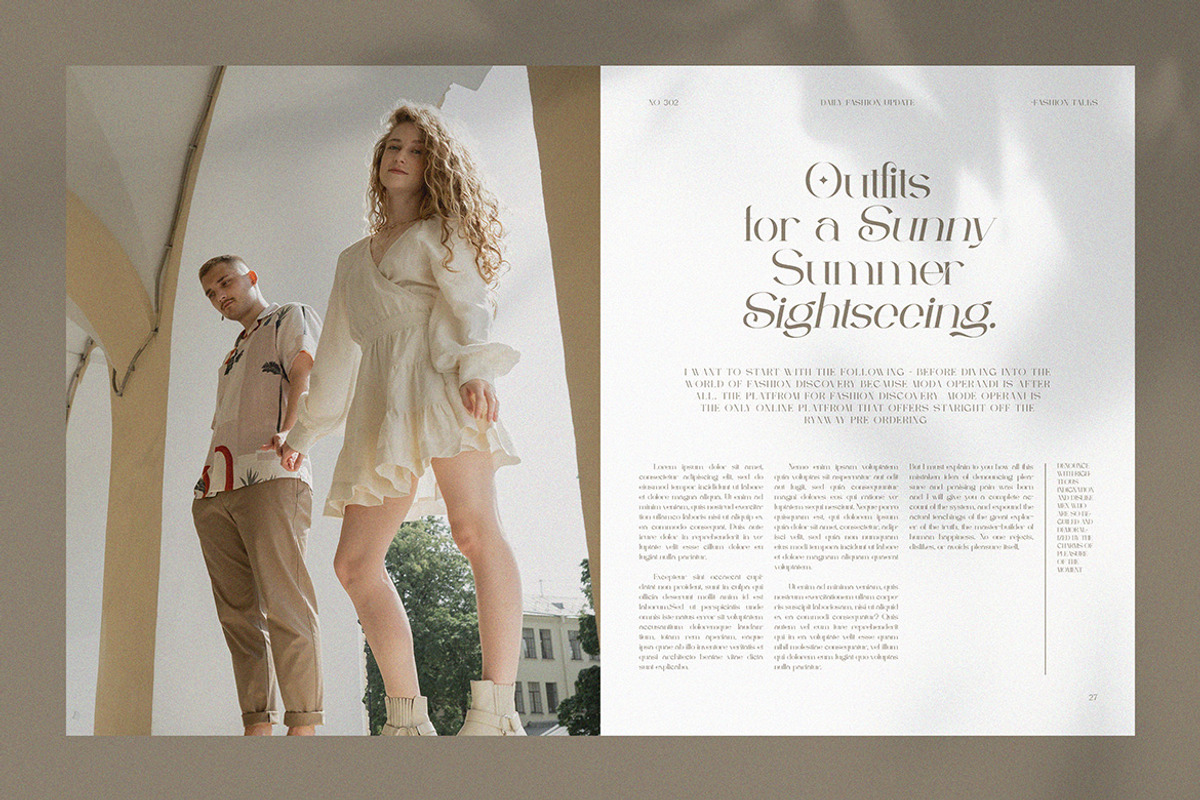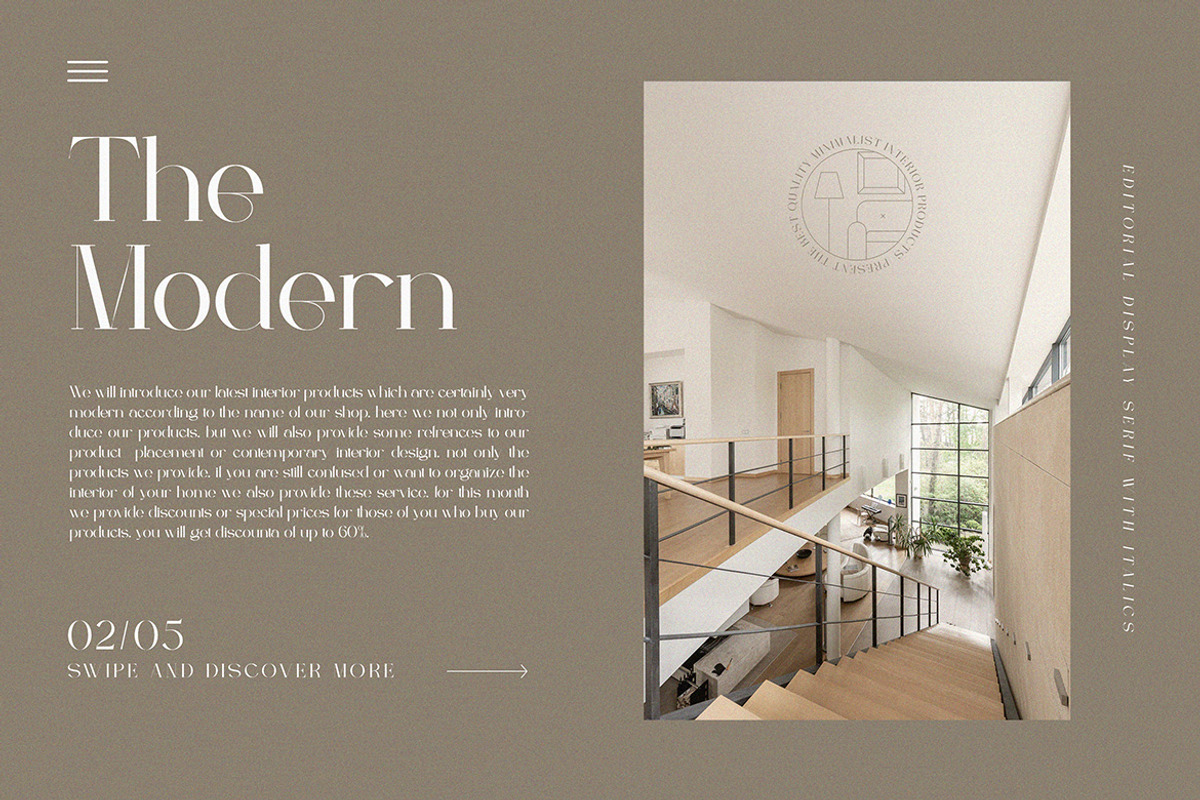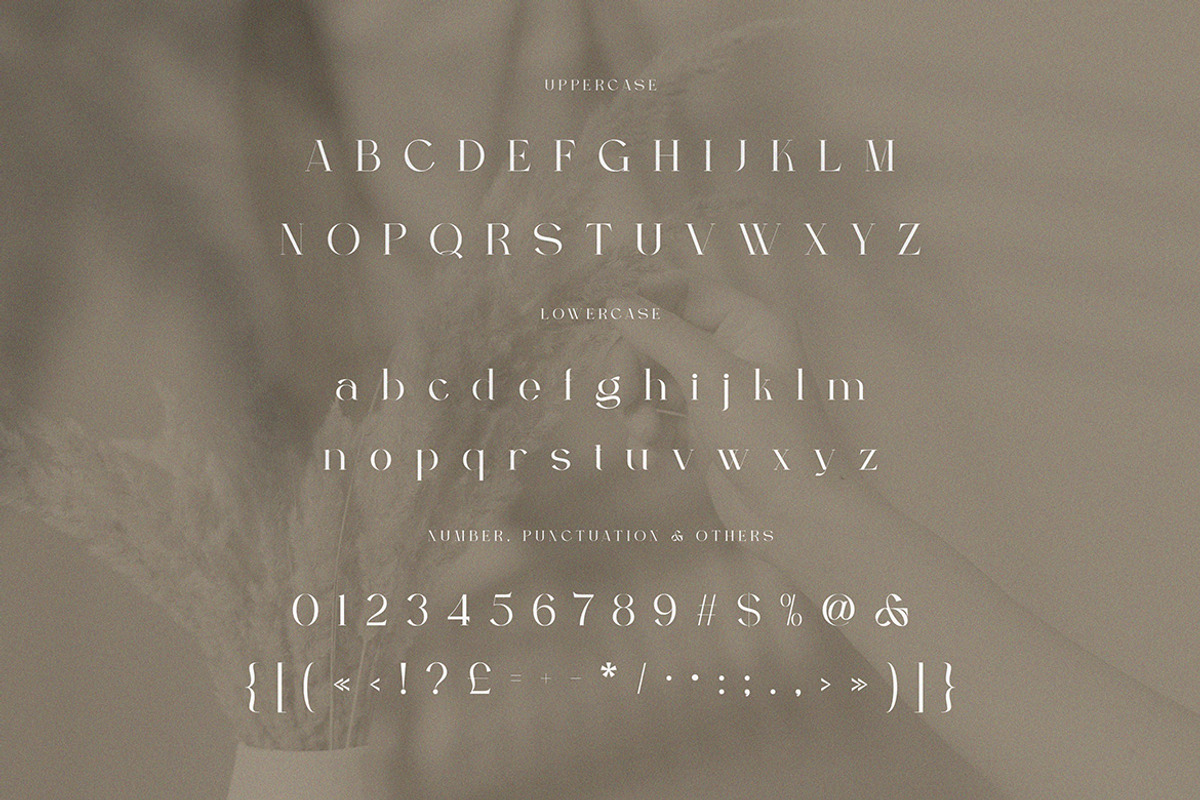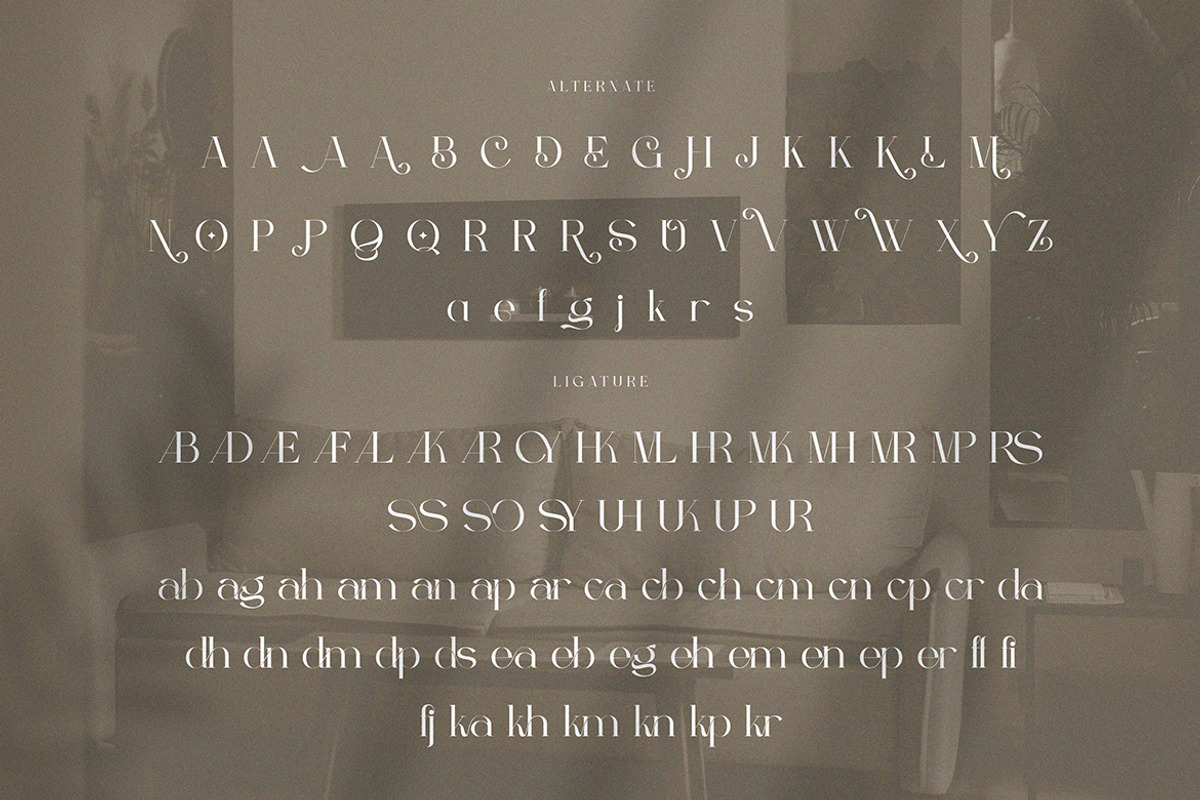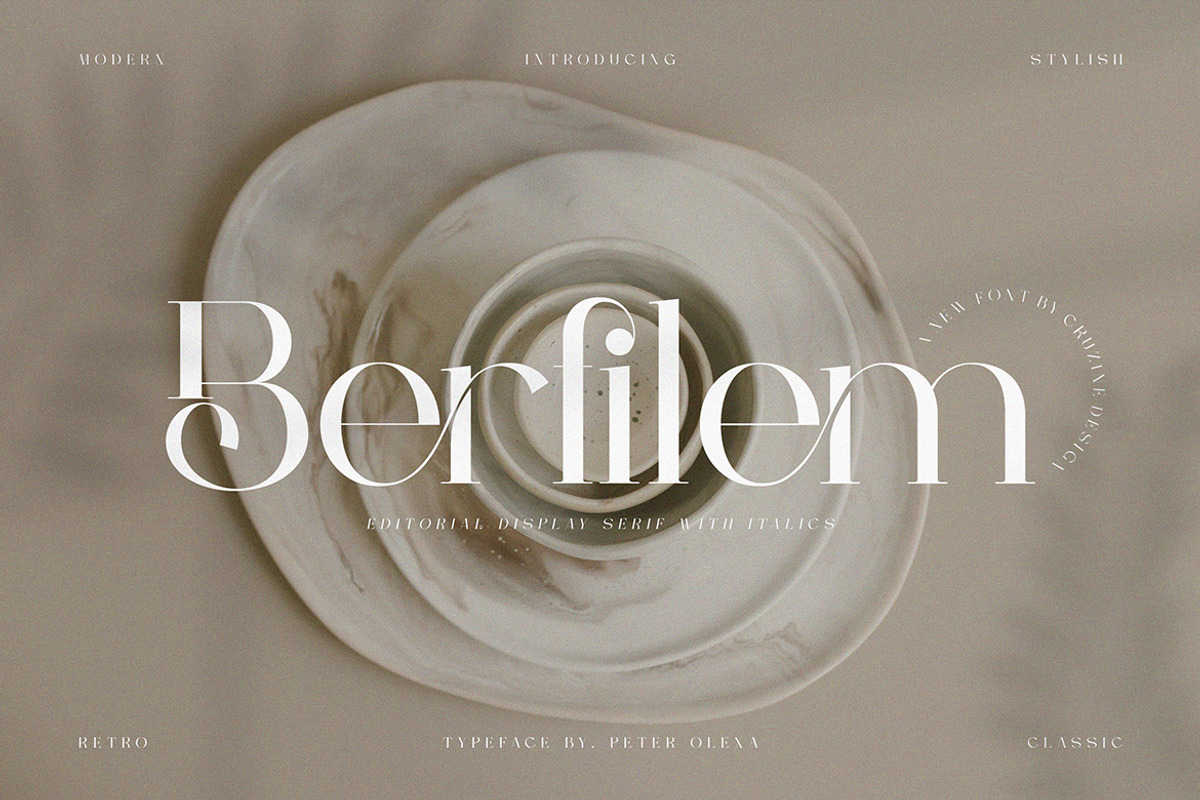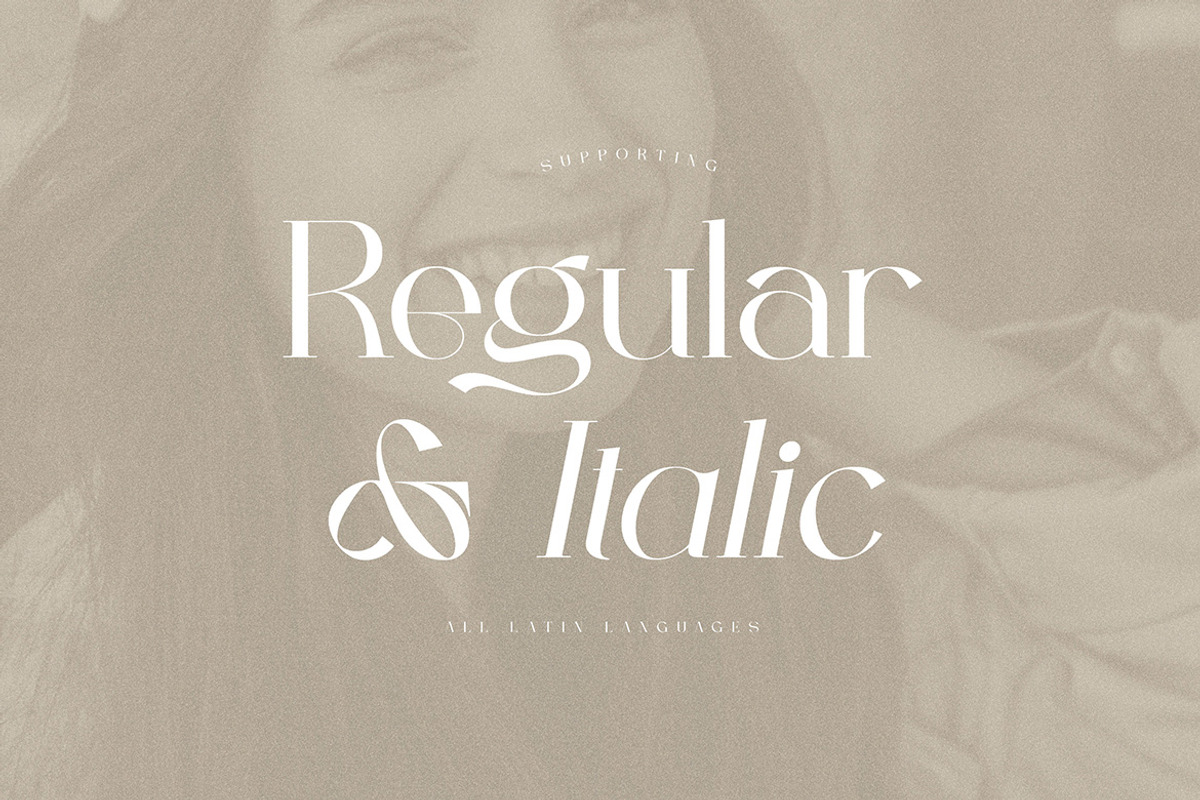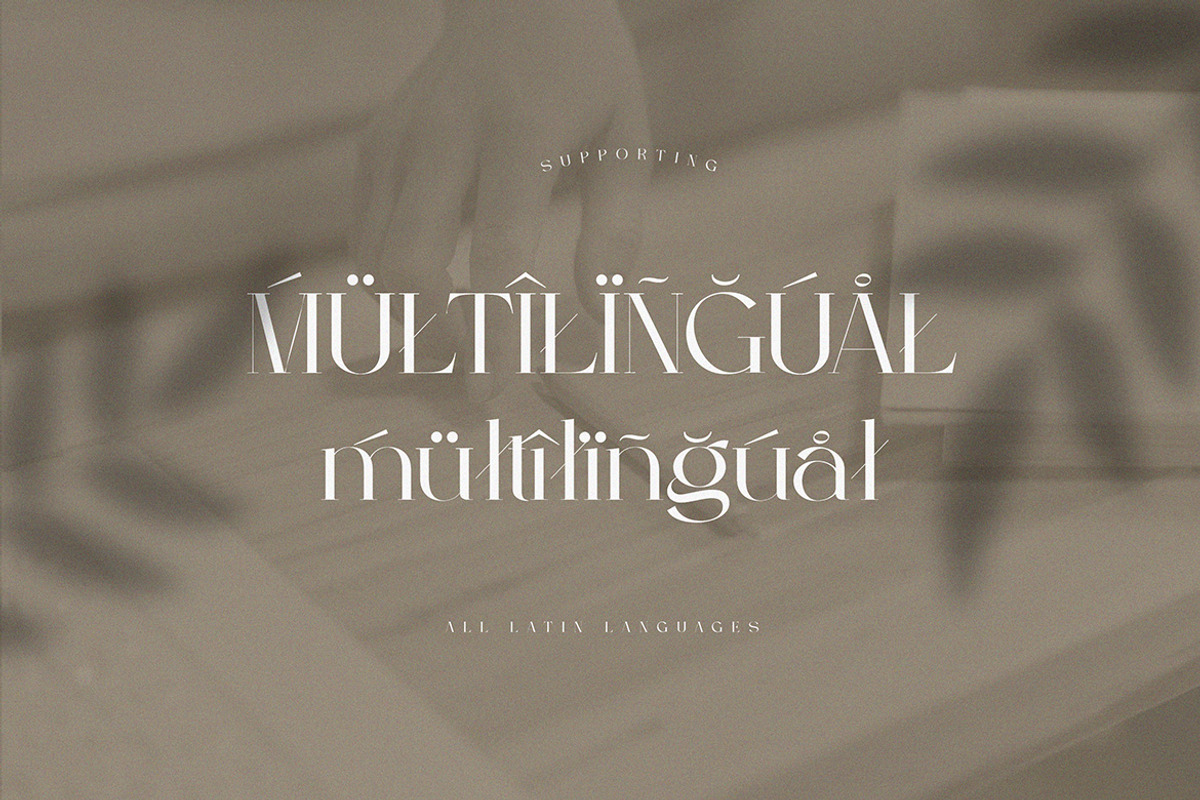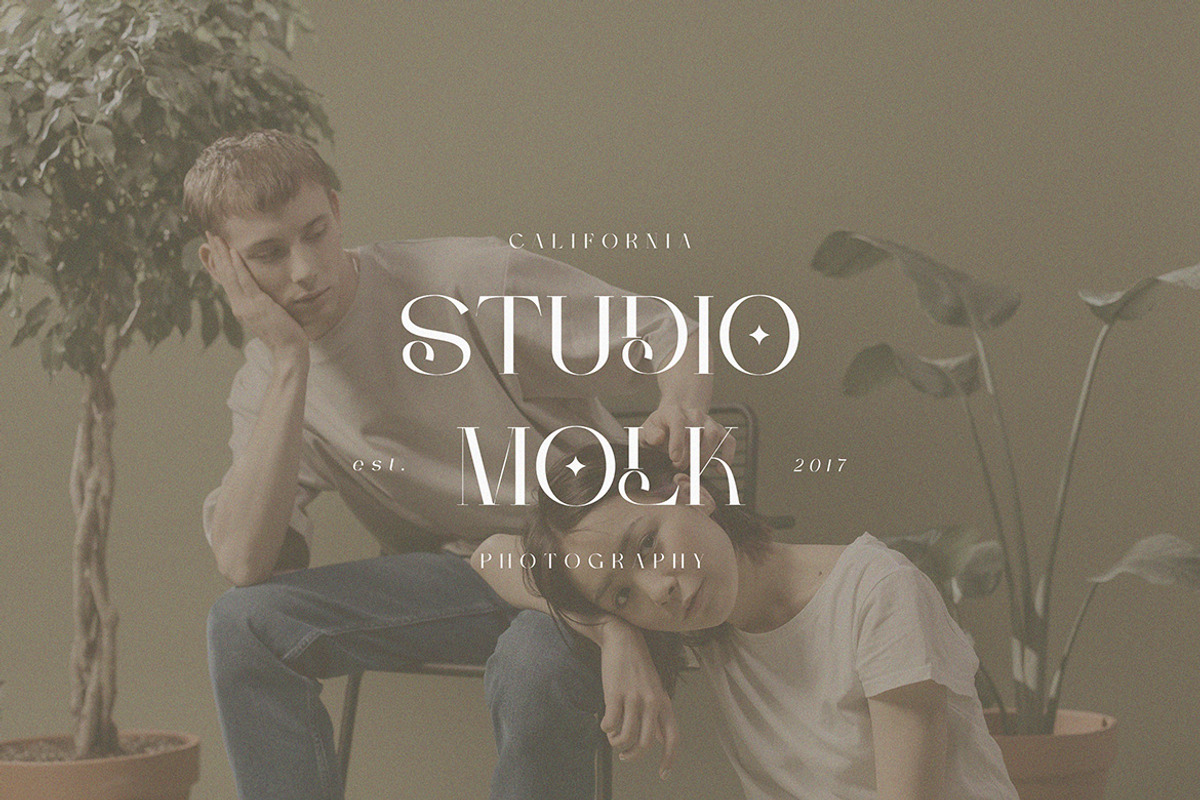
Berfilem - Editorial Display Serif
Trendy, elegant, artistic, luxury & modern style serif font for your fancy projects. Elegant, fashion and editorial style on Berfilem font will be great for any branding project. Lot of alternates and ligatures will help you to create unique and original logo design or website header! Enjoy :)
- Lot of alternate characters
- Lot of ligatures
- Great for modern branding projects!